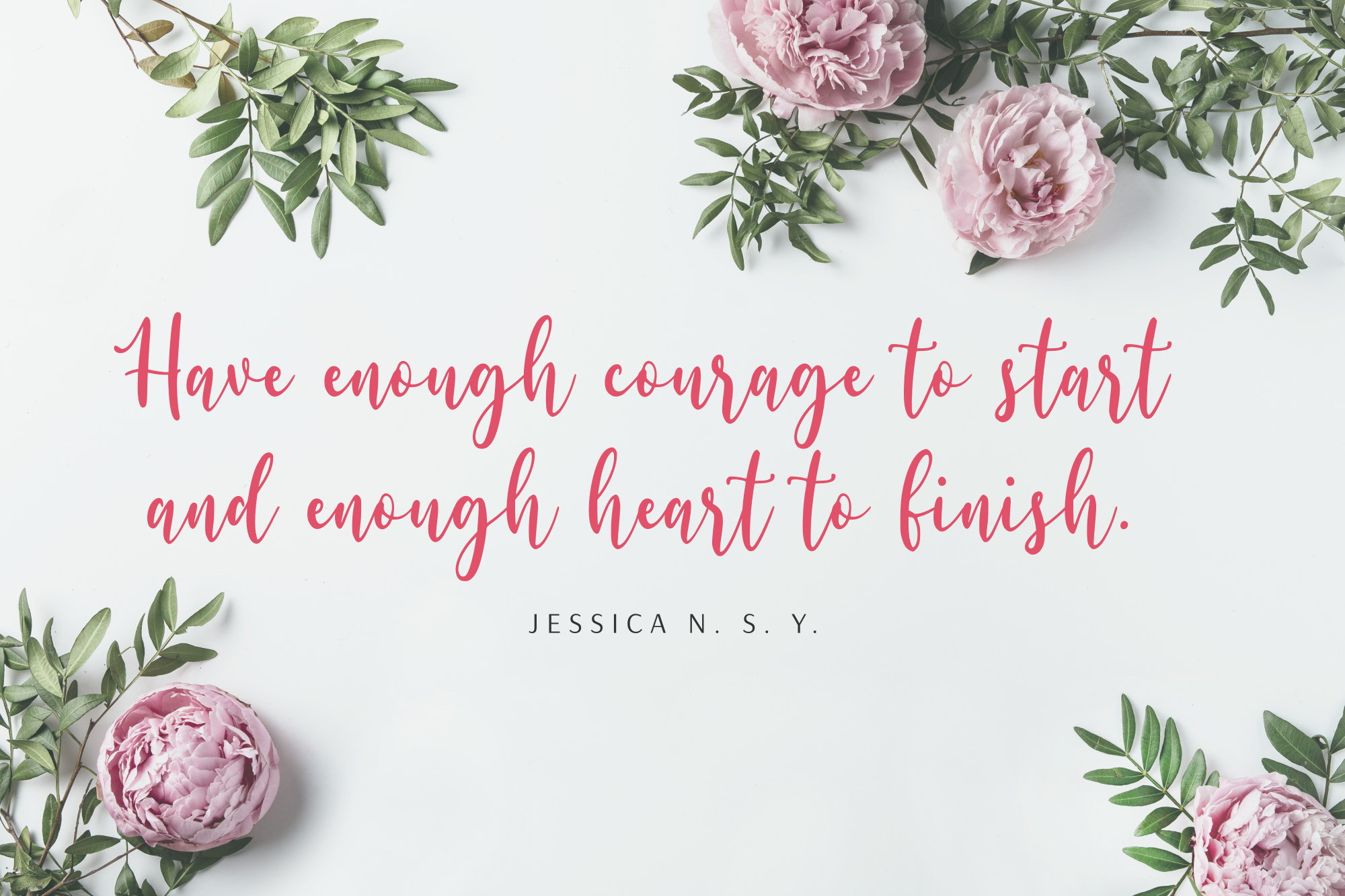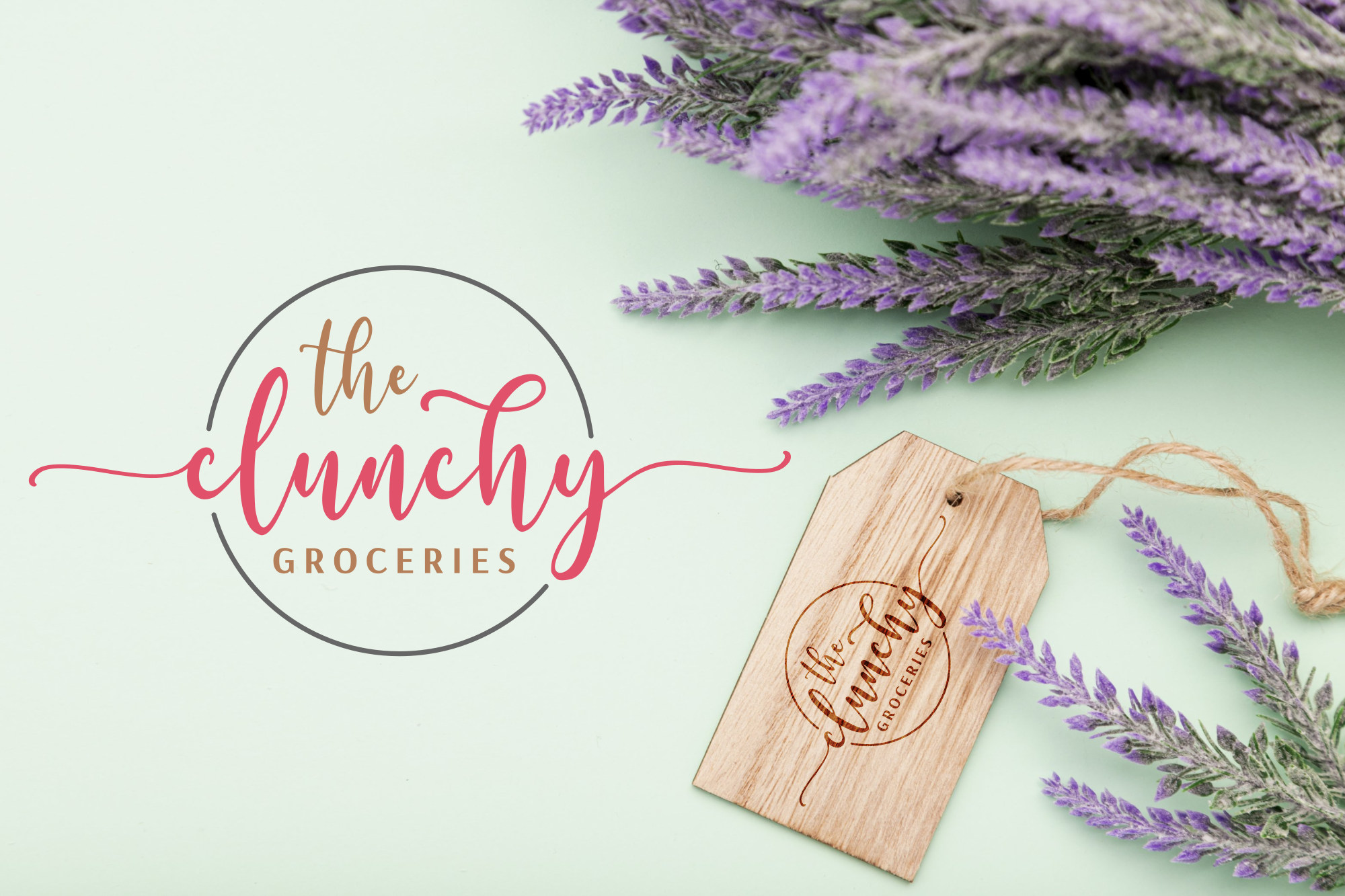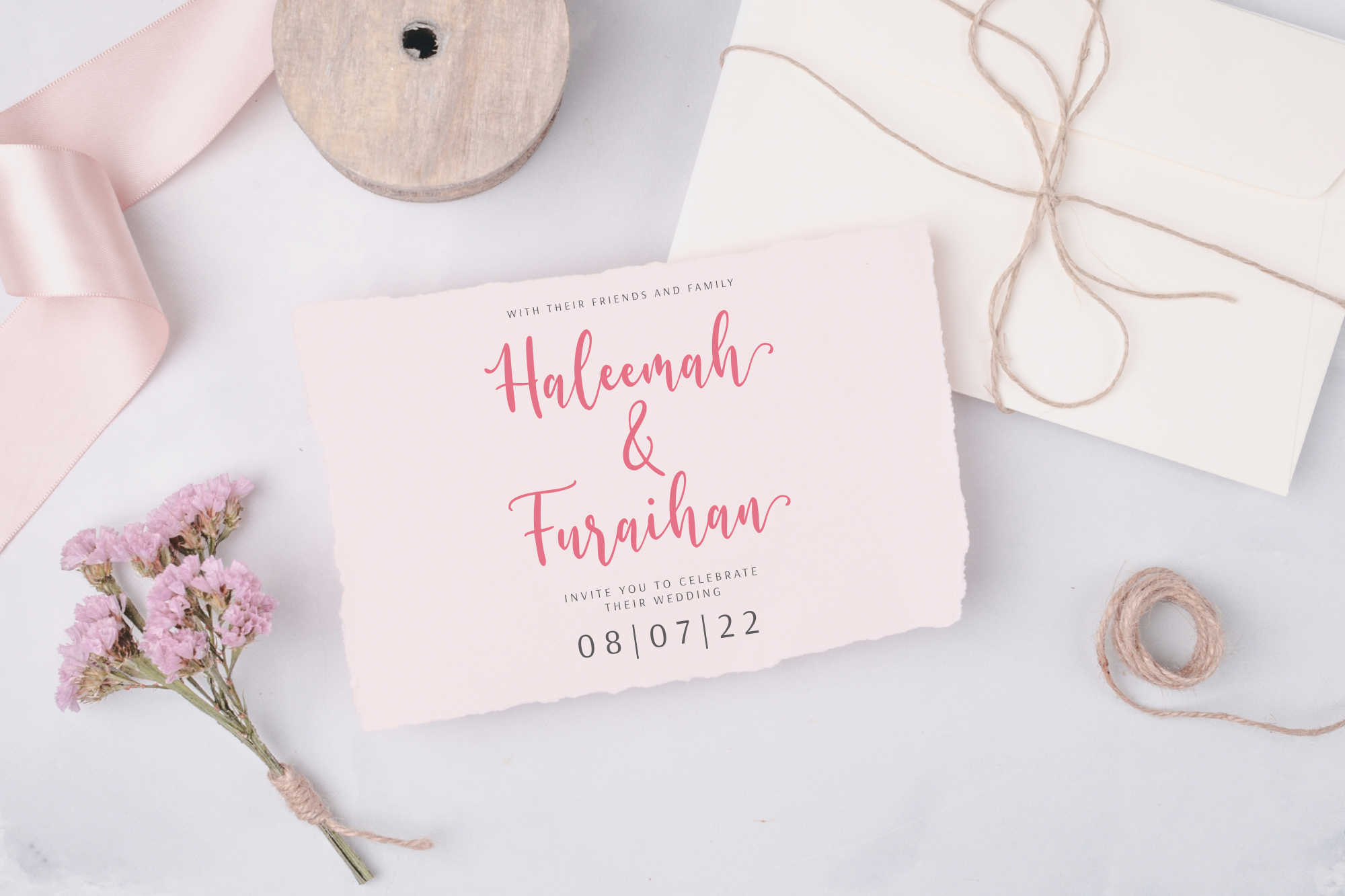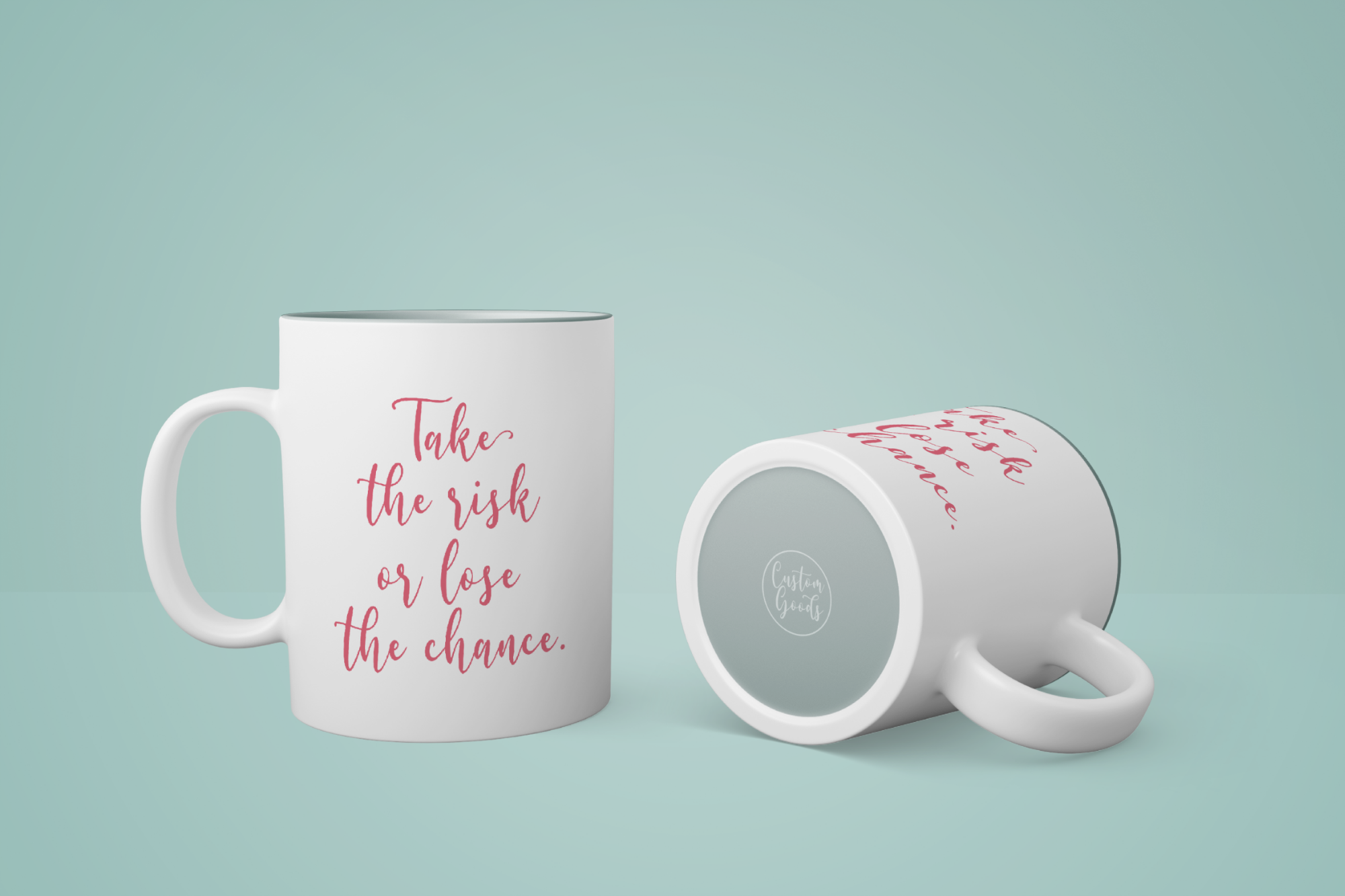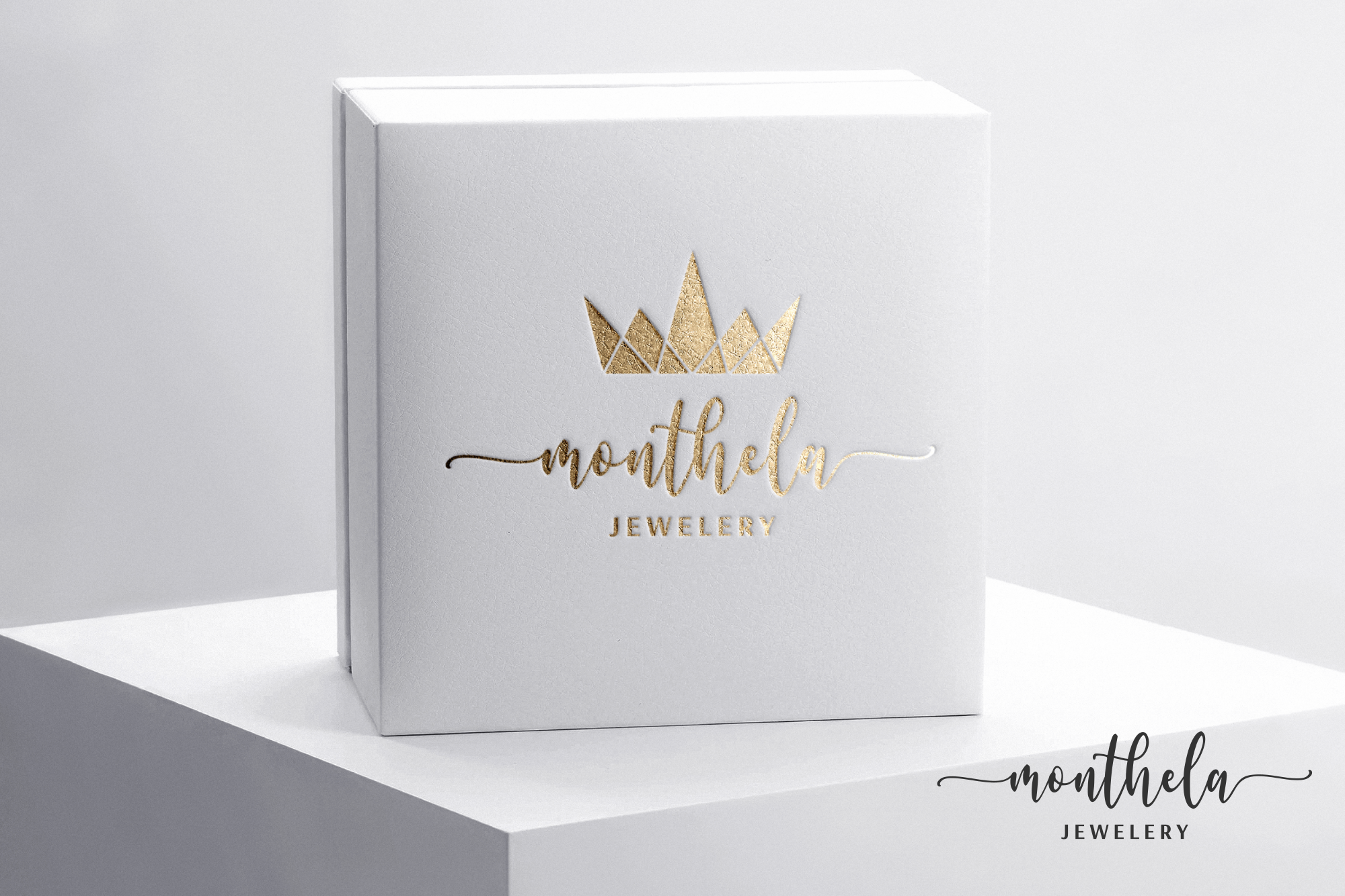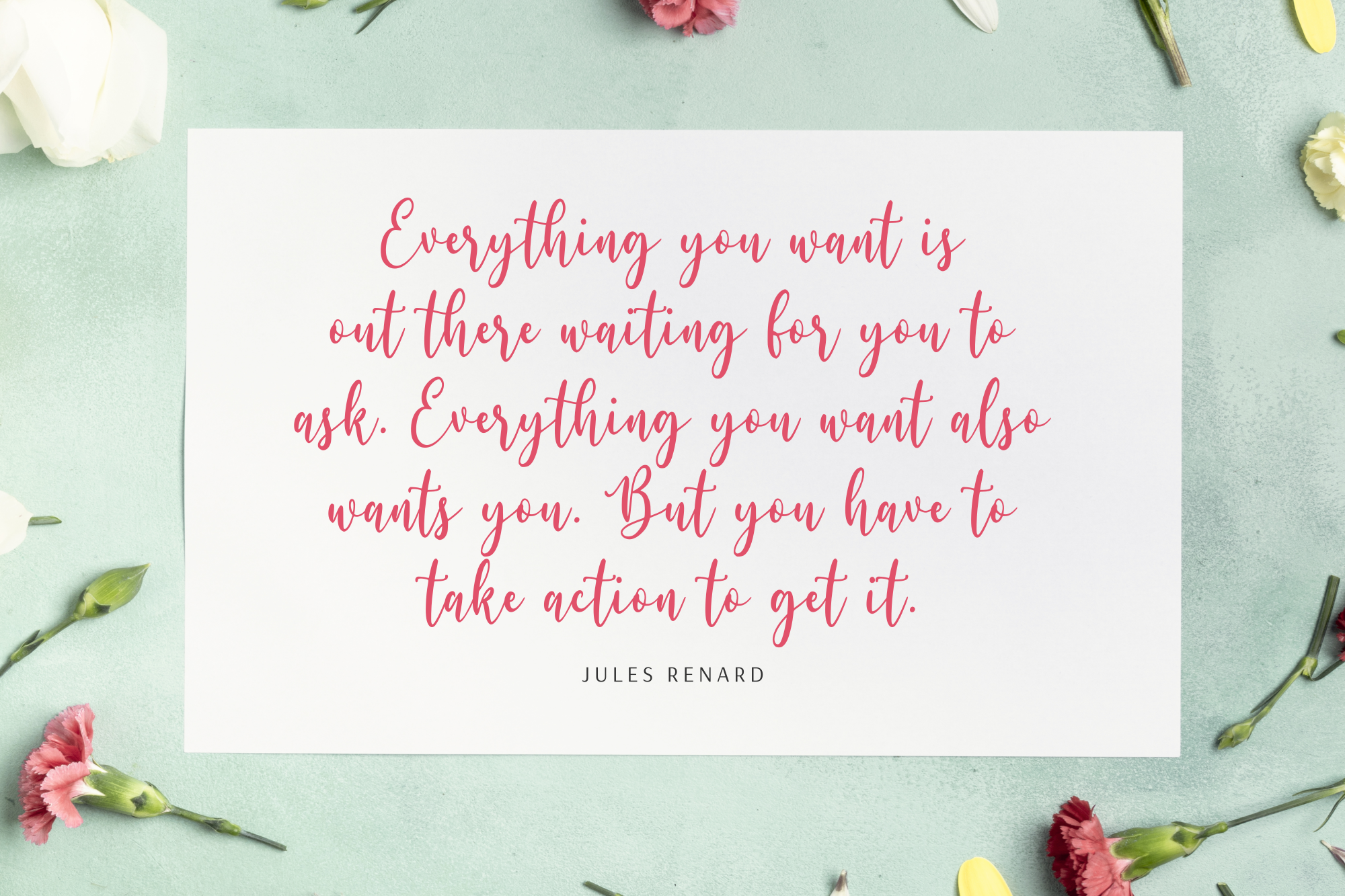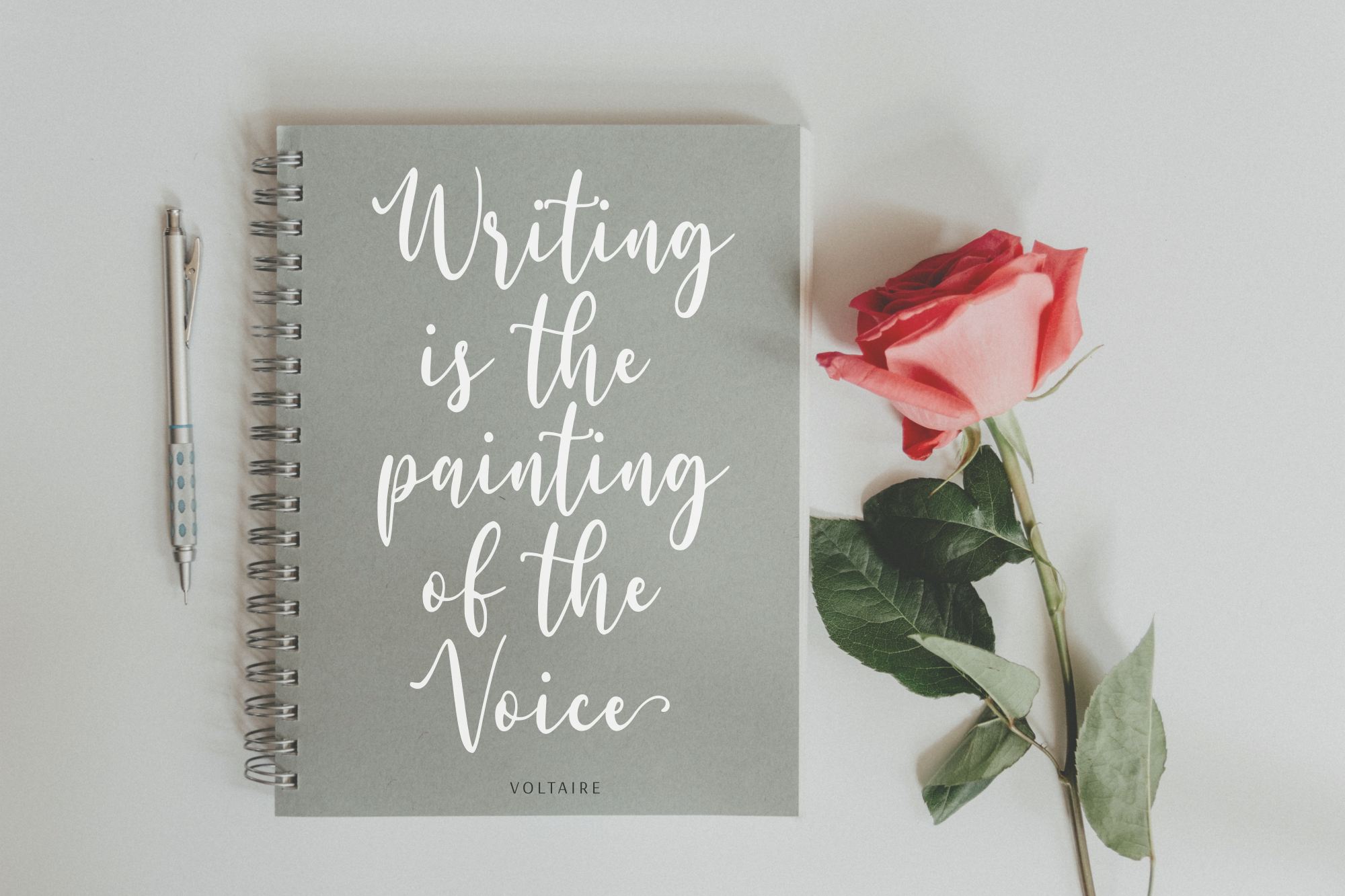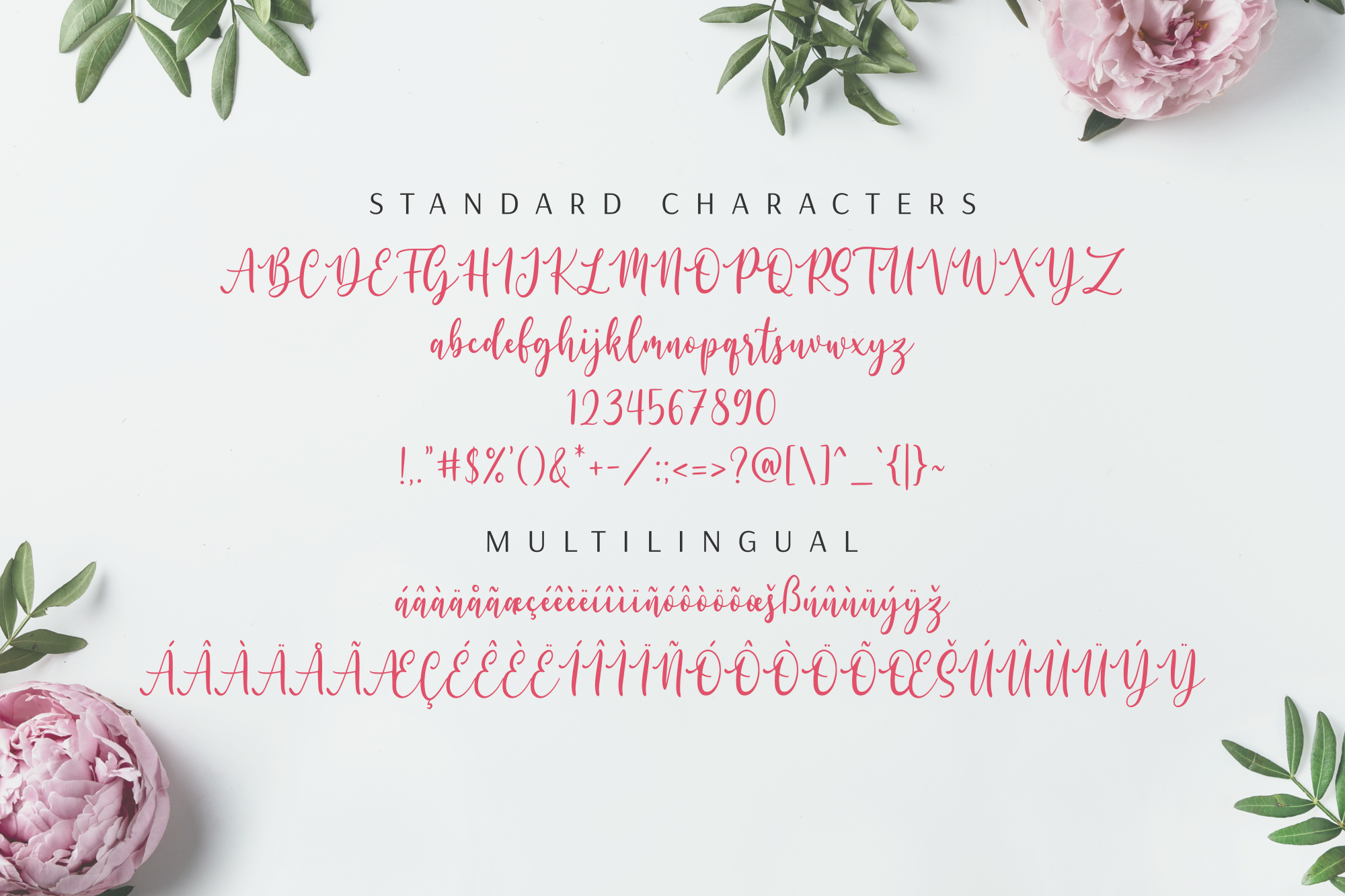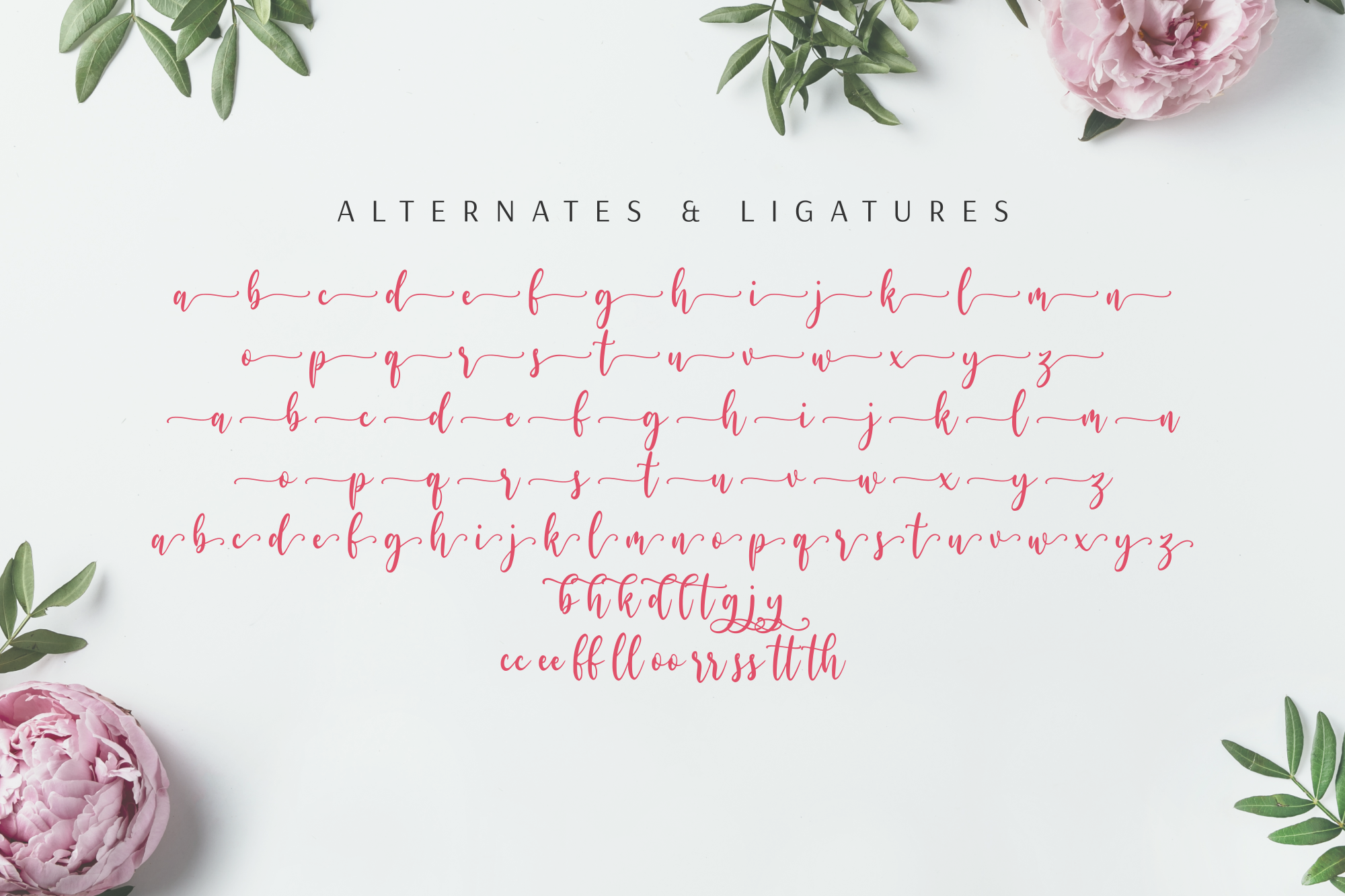
Malytha - Modern Calligraphy Font
Script
Malytha - Modern Calligraphy Font
Malytha is an enchanting calligraphy font with a relaxed and delicate style. It features smooth lines, a varying baseline, beautiful glyphs, and elegant alternates.
Malytha is an enchanting calligraphy font with a relaxed and delicate style. It features smooth lines, a varying baseline, beautiful glyphs, and elegant alternates. It looks gorgeous on logos, branding, invitations, stationery, wedding designs, social media posts, advertisements, and more.
Logos, branding, packaging, posters, and editorial applications